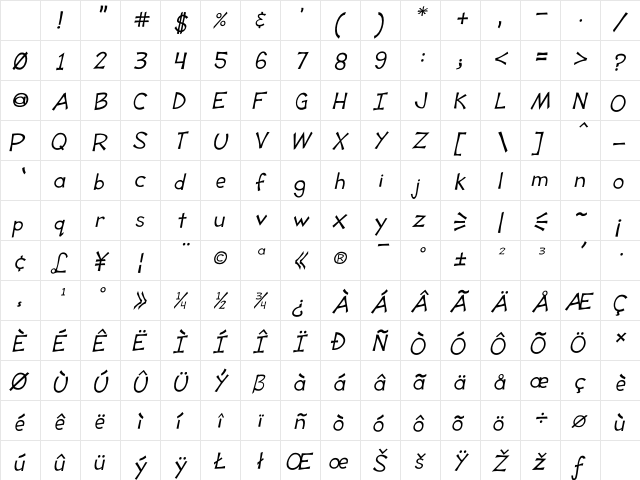
Complete Tooney Loons Italic glyph index. Displaying only characters natively supported by Tooney Loons Italic font.
Tooney Loons is a composed and adaptable typeface that performs quietly and consistently across a wide range of design contexts. The slanted form adds forward momentum and visual energy.
Pro Tip: Use Tooney Loons for emphasis, pull quotes, and subheadings where its slanted energy can add rhythm to the layout.